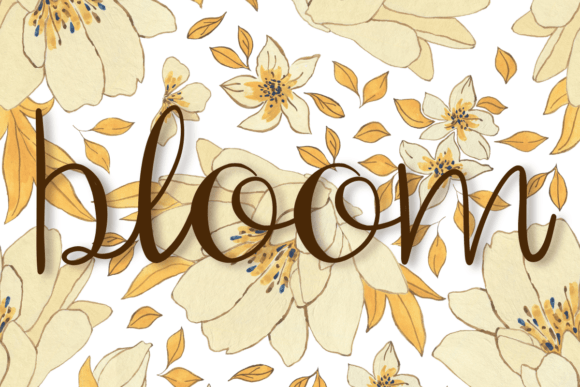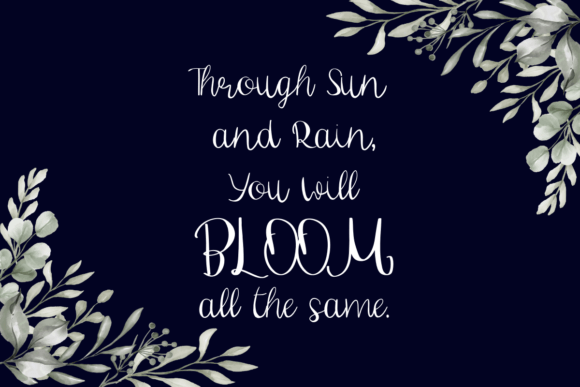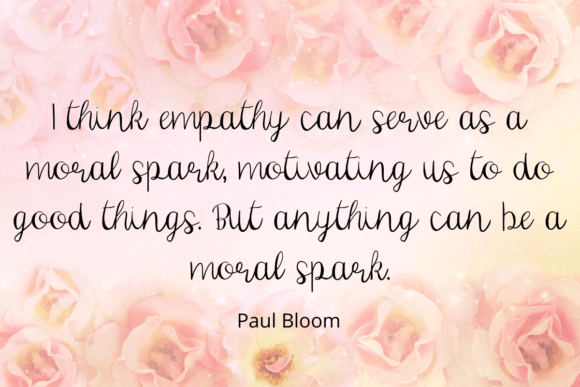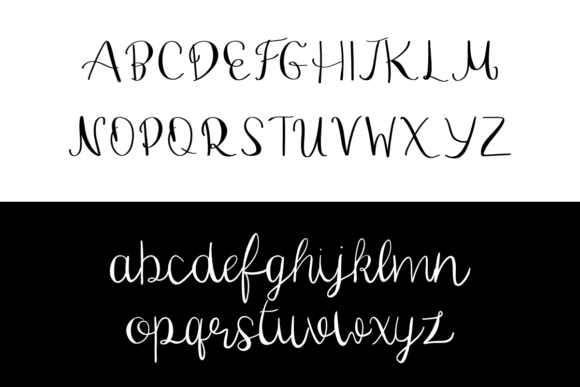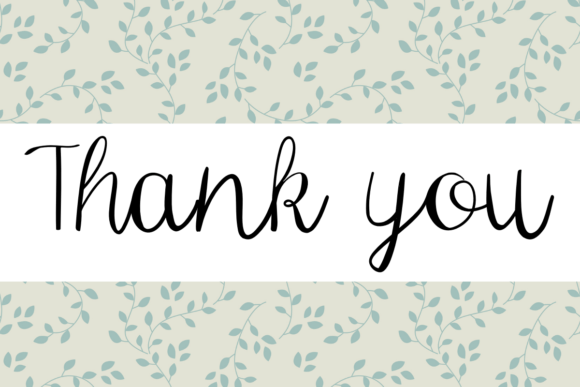
“Bloom” is a delightful and chic script font that adds charm and style to a variety of design projects. Its elegant and graceful appearance makes it a perfect choice for a wide range of applications, including logos, branding projects, labels, photography, watermarks, special events, and more.
One of the key features of “Bloom” is its versatility. Its charming and stylish script makes it suitable for both formal and informal contexts, allowing it to adapt seamlessly to different design themes and aesthetics. Whether you’re working on a high-end fashion brand, a cozy café logo, product labels, or event invitations, “Bloom” can enhance the overall visual appeal of your project.
In logo design, “Bloom” can create a memorable and sophisticated brand identity. Its flowing and elegant letterforms add a touch of refinement, making your logo stand out and leaving a lasting impression on viewers. When used in branding projects, the font conveys a sense of professionalism and creativity, enhancing the brand’s image and making it more visually appealing to the audience.
For labels and packaging, “Bloom” can add a touch of elegance and class. Its stylish script can transform ordinary labels into eye-catching and premium designs, making products more attractive to potential customers. In photography, “Bloom” can be used as a watermark to protect your images while adding a subtle and artistic signature to your work.
Special events, such as weddings, parties, and ceremonies, can benefit from the charm of “Bloom.” Whether it’s used in invitations, menus, place cards, or other event materials, the font adds a romantic and elegant touch, enhancing the overall atmosphere of the occasion.
In summary, “Bloom” is not just a font; it’s a design asset that can elevate your projects to new heights. Its charming and stylish script is a valuable tool for designers, photographers, and anyone looking to add a touch of sophistication and elegance to their creations. Embrace the beauty of “Bloom” and let it enhance your designs with its timeless charm and grace.